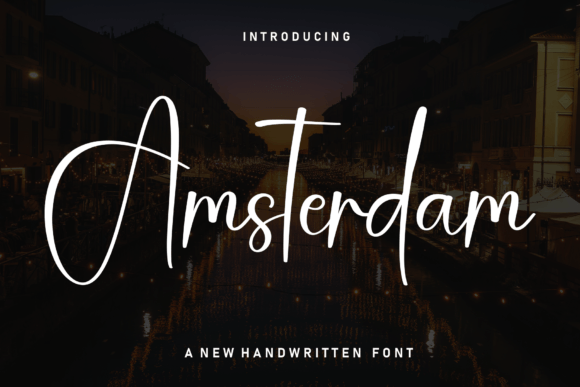
The Amsterdam Font: A Sweet and Cursive Handwritten Delight
I’ll never forget the design project that led me to discover the Amsterdam font. I was working on a wedding invitation suite, and my client wanted a font that was both elegant and playful. I had spent hours scouring the internet for the perfect font, but nothing seemed quite right. That was when I stumbled upon Amsterdam, a sweet and cursive handwritten font that stole my heart. In this article, I’ll share my experience with Amsterdam, including what I love about it, its quirks, and how to make the most of its features in various design platforms.
- ✨ The elegant, cursive script that adds a touch of sophistication to any design
- ✅ The font’s versatility – it works beautifully for branding, logos, wedding materials, greeting cards, and more
- 💕 The way it pairs perfectly with a variety of design elements, from minimalist to ornate
- 🎉 The font’s ability to evoke a sense of joy and romance in any project
While Amsterdam is an amazing font, there are a few things to keep in mind:
- ⚠️ The font can be a bit tricky to read at very small sizes, so it’s best used at larger sizes or in headlines
- 🤔 Some of the glyphs and special characters can be a bit finicky, requiring a bit of experimentation to get just right
- Experiment with the font’s OpenType features, such as ligatures and stylistic alternates, to add visual interest
The Story Behind Amsterdam
Amsterdam was designed by a talented type designer who wanted to create a font that captured the essence of the city: elegant, charming, and full of character. The font’s gentle curves and flowing lines are meant to evoke a sense of joy and romance, making it perfect for designs that require a touch of whimsy.
Q: What is the best use for Amsterdam?
A: Amsterdam is a versatile font that can be used for a wide range of designs, including branding, logos, wedding materials, greeting cards, and more.
Q: Is Amsterdam suitable for body text?
A: While Amsterdam is a beautiful font, it’s best used in headlines or larger text sizes. For body text, you may want to choose a font that’s easier to read.
Q: Can I use Amsterdam with other fonts?
A: Absolutely! Amsterdam pairs well with a variety of fonts, so feel free to experiment and find the perfect combination for your design.